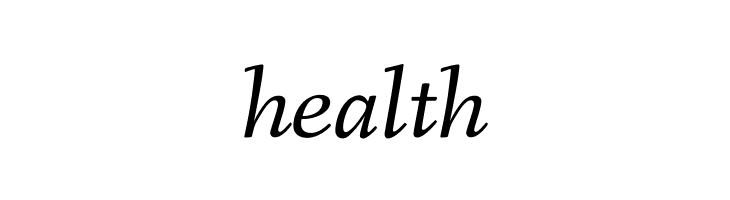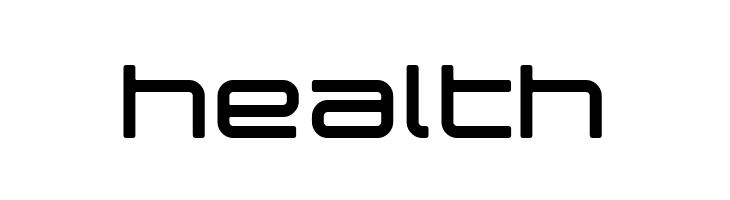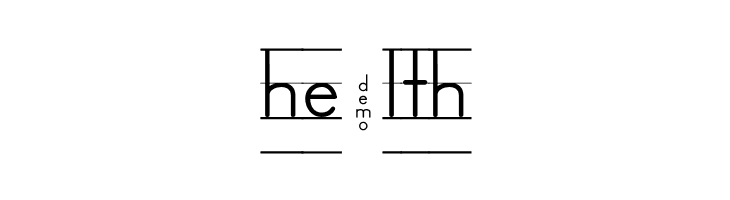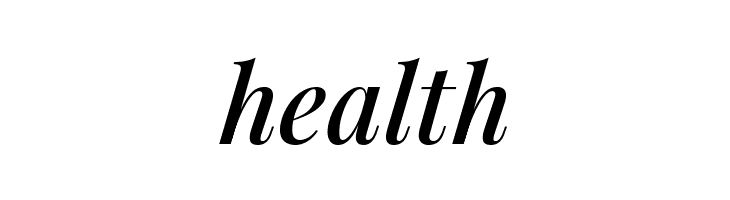
A modern, rounded font with a futuristic and geometric style.
A classic serif font with elegant italic styling and moderate contrast.
A clean, modern monospaced font with medium contrast and geometric influences.
A modern, geometric font with a sleek and futuristic style.
A sleek, elegant italic font with thin, elongated letterforms and a modern aesthetic.
A modern, geometric font with clean lines and consistent stroke widths.
Elegant serif font with high contrast and italic style.